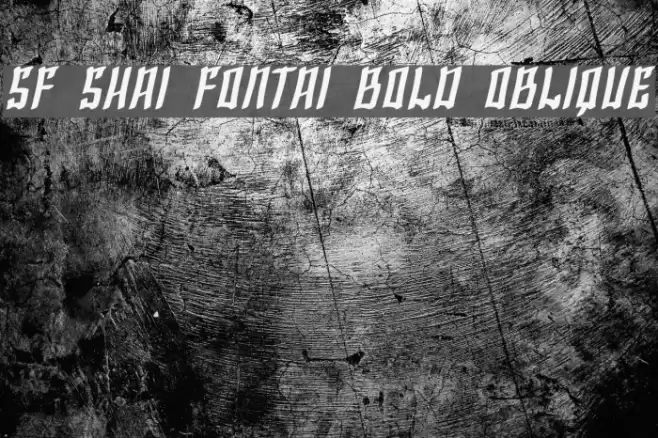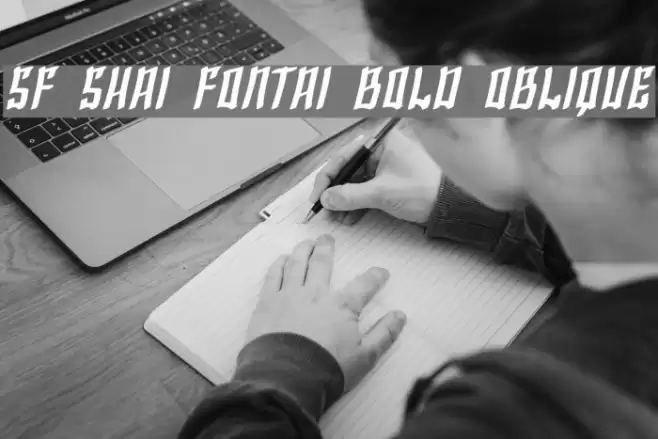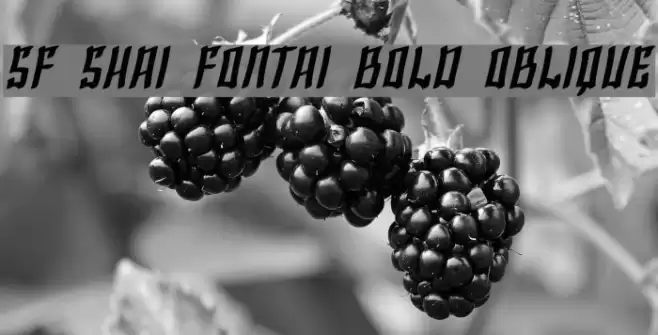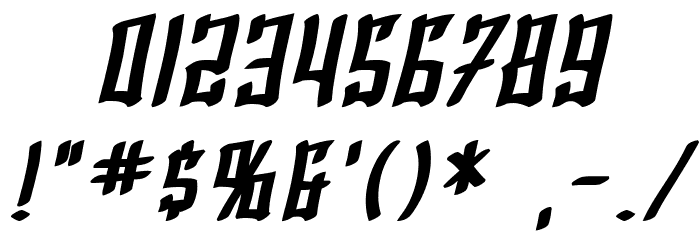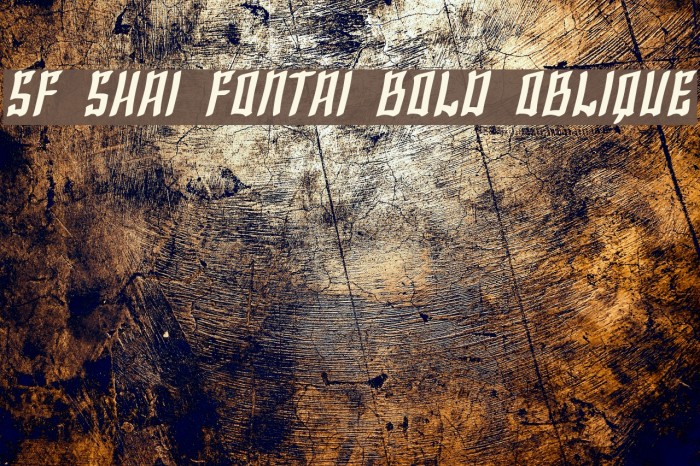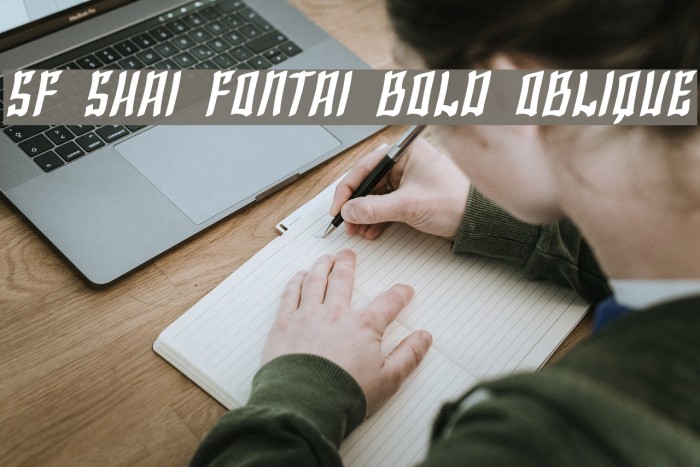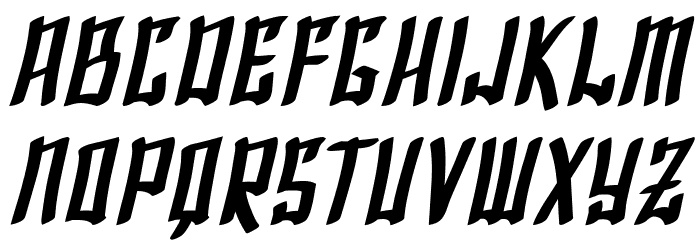
SF Shai Fontai Bold Oblique Font
SF Shai Fontai Bold Oblique Description
This font exhibits a bold and dynamic style with a distinct oblique slant, giving it a sense of motion and energy. The characters are sharply angled, with strong, thick strokes that convey a sense of power and assertiveness. The uppercase and lowercase letters maintain a consistent style, with the uppercase being slightly more pronounced. The numerals and special characters are designed to match the boldness and slant of the alphabet, ensuring a cohesive look across all text. This font is ideal for making a strong visual impact.
A bold, oblique font with dynamic, angled strokes for a powerful impact from Asian fonts.
- Proposed Projects: Perfect for sports branding, action movie posters, dynamic advertisements, and video game titles.